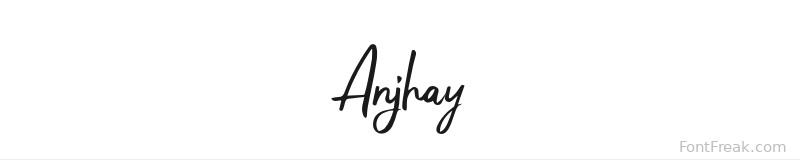
Anjhay
About Anjhay
Anjhay, designed by Syaf Rizal, is a captivating handwritten font that exudes a sense of elegance and charm. This font falls under the decorative category, characterized by its fluid, script-like strokes that mimic the natural flow of handwriting. The unique visual characteristics of Anjhay include varying stroke weights and a moderate contrast that adds a dynamic touch to its overall appearance. The spacing is thoughtfully crafted, ensuring legibility while maintaining an artistic flair. The font features gentle curves and playful loops, making it visually engaging and inviting.
Anjhay is ideal for a variety of creative applications. It works beautifully for wedding invitations, where its romantic style can enhance the emotional appeal of the event. Additionally, it can be effectively used in branding for artisanal products, as it conveys a personal touch that resonates with consumers. Restaurant menus can benefit from Anjhay’s distinctive look, adding a sophisticated yet approachable element that enhances the dining experience. Furthermore, this font is perfect for social media graphics and content creation, allowing content creators to infuse their work with a unique personality.
What truly sets Anjhay apart is its ability to balance artistry with functionality. This font not only captures attention with its aesthetic appeal but also serves practical purposes across various mediums, making it an excellent choice for anyone looking to add a personal touch to their typography.